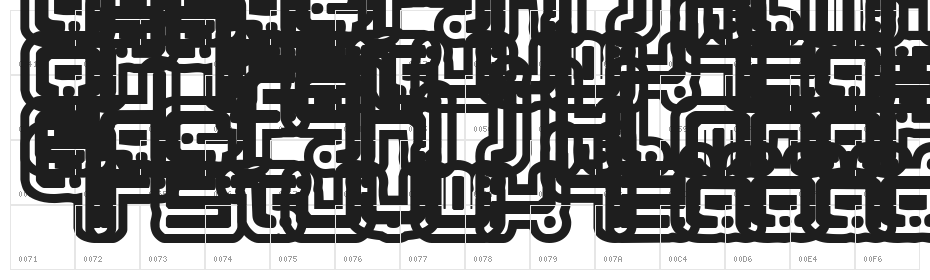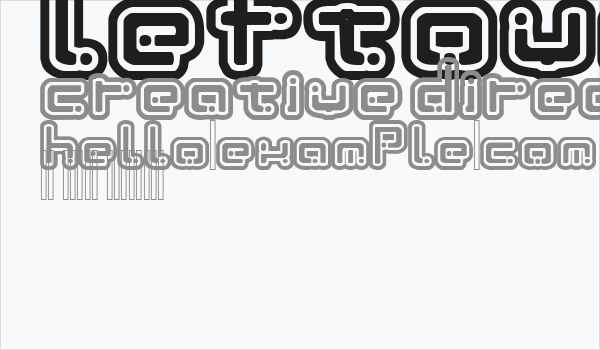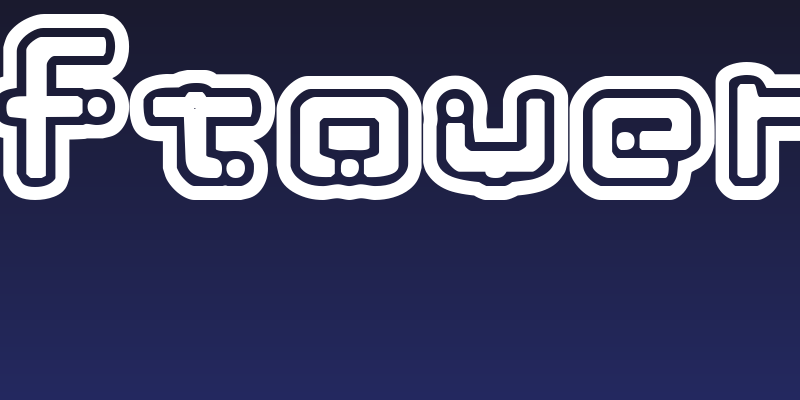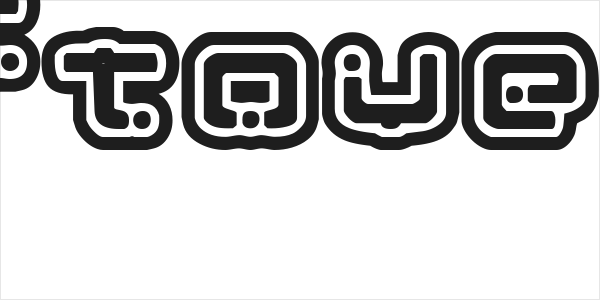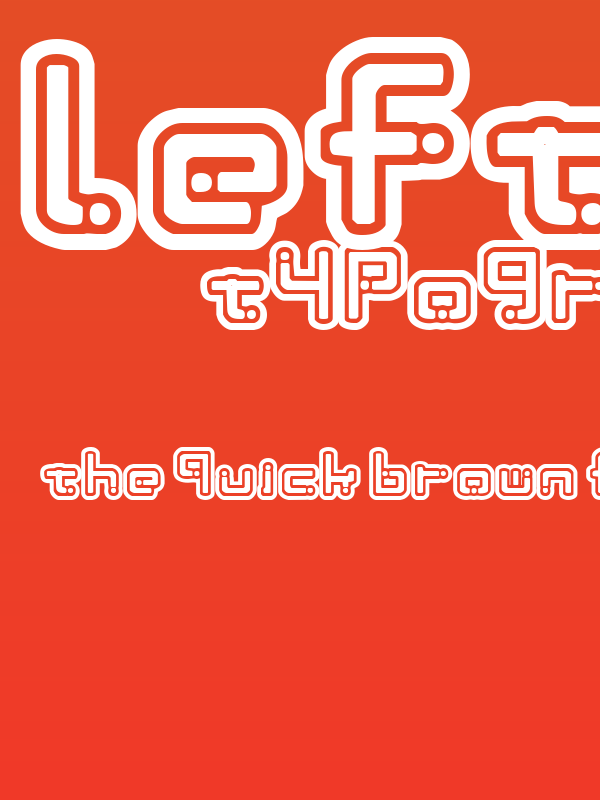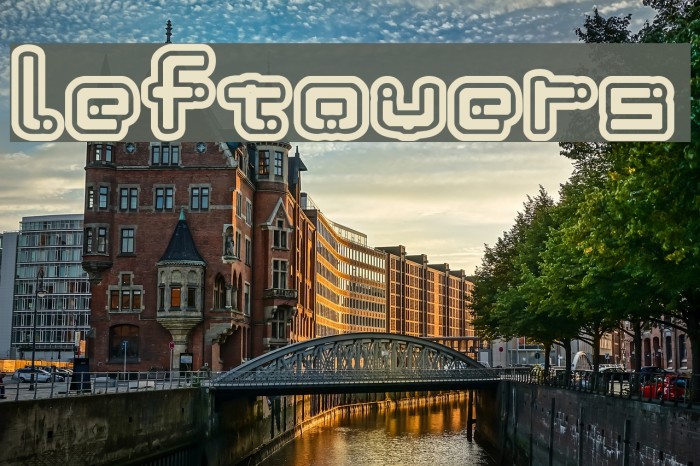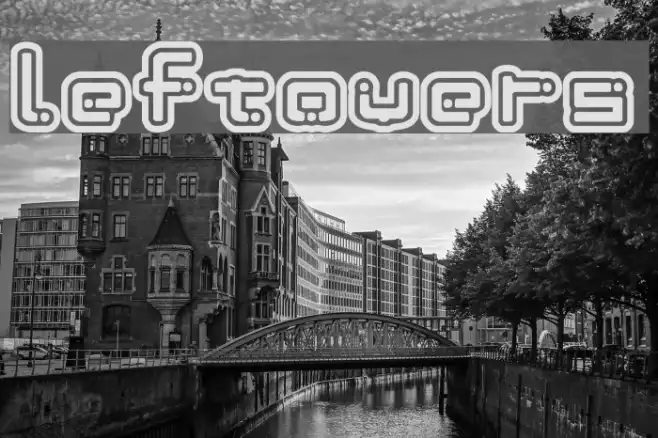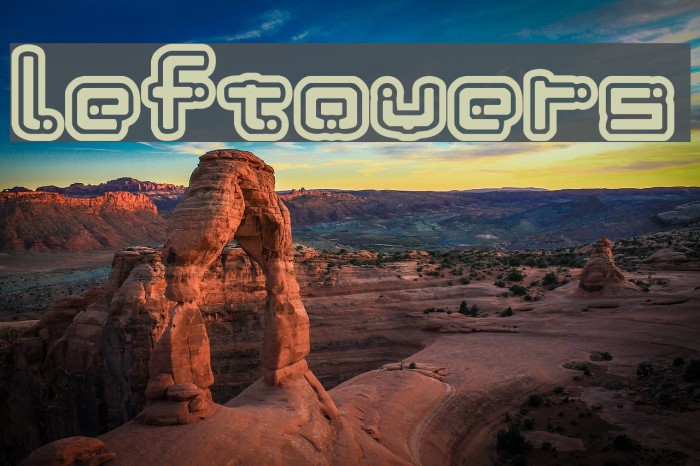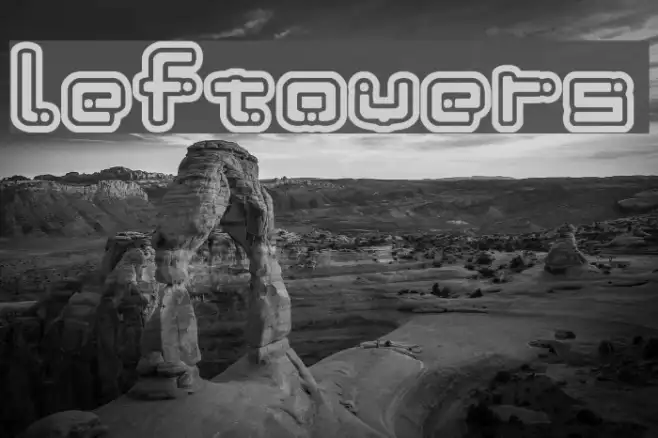
LeftOvers 5 Font
LeftOvers 5 Description
This font features a bold, outlined style with a playful and modern aesthetic. Each character is encapsulated within a thick border, creating a striking visual impact. The letters are rounded and have a consistent thickness throughout, giving them a uniform appearance. The font's design is reminiscent of retro digital displays, making it ideal for projects that require a futuristic or tech-inspired look. The spacing between characters is tight, enhancing the compact and cohesive feel of the text. This font is versatile and can be used in various creative applications.
| Proposed Projects | Ideal for digital art, tech-themed posters, video game graphics, and futuristic branding. |